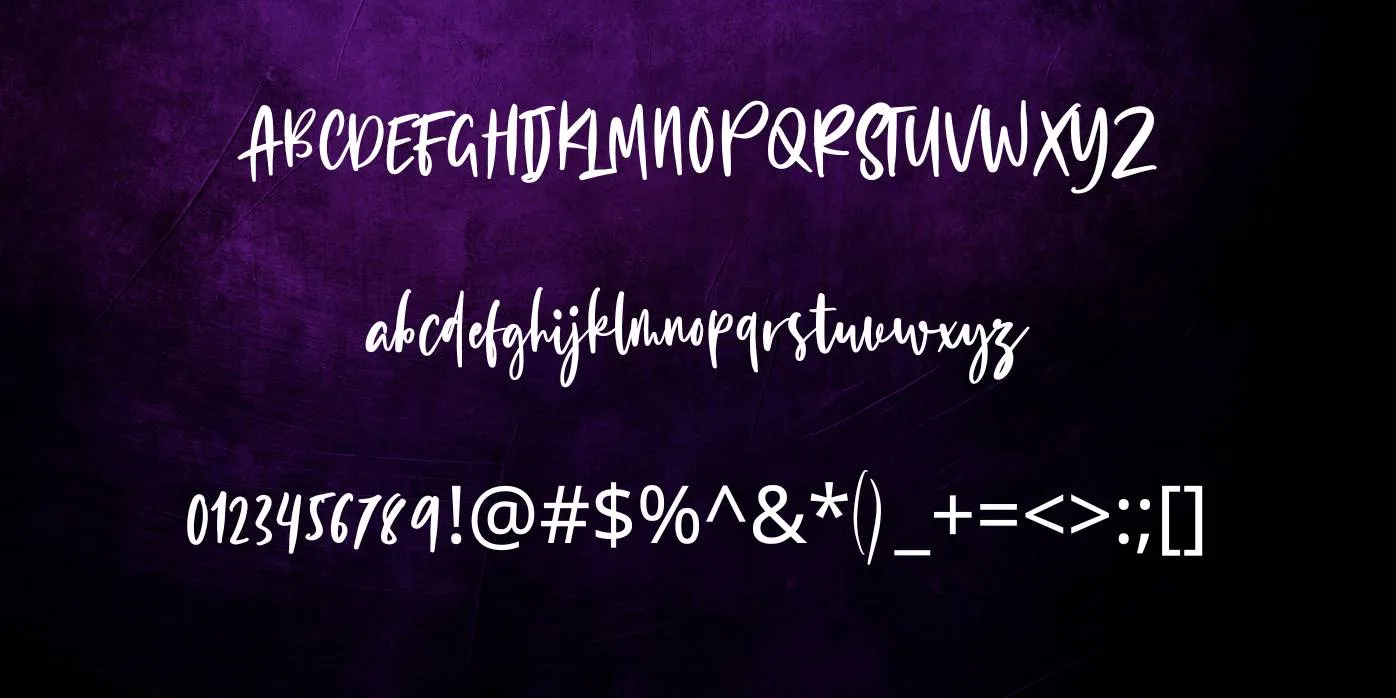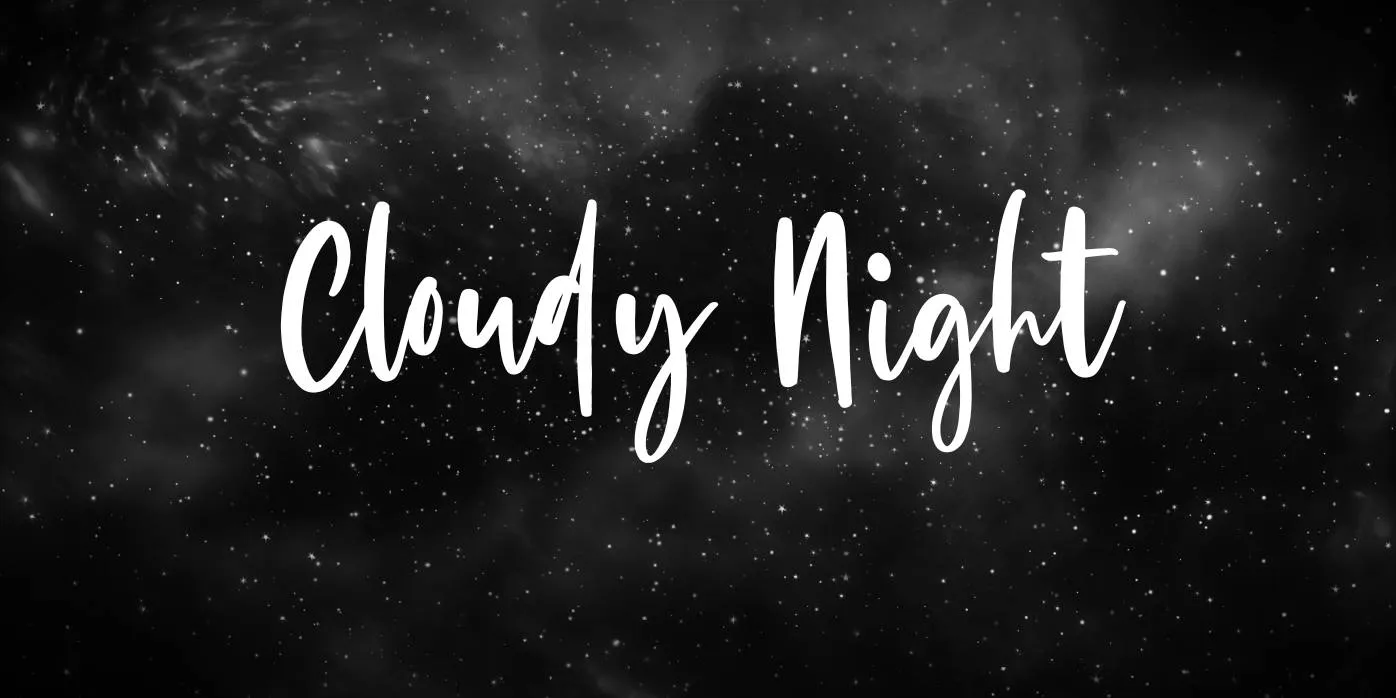
Cloudy Night Font
Cloudy Night is a very stylish and modern handwritten font and can be used to design many different projects. It has amazing elements which are good for any kind of project. It has 68 characters, 72 glyphs, and 1000 units per Em. Unicode blocks supported by this font are Basic Latin.
You can copy and paste your text easily into it. You can use this font for pairing with other fonts like royal signature font to give your project a more attractive and classy look. Usage This font can be used to design many different projects. You can make amazing handwritten projects by using lowercase, uppercase letters, and some special characters.
It can be used to design invitation cards, greeting cards, and other party invitations. You can make attractive book covers and fashion magazine covers by using this font. You can also use this font for social media posts and classy blogs. For making titles and logos you can also use this typeface.
It is considered a good font for both print and digital media. This font is good for making photographic album covers also. You can make stunning websites and graphic designs by using different Illustrators, Adobe Photoshop, CSS, and Canva. For branding and product packing you can also use it.
FAQs! What kind of Cloudy Night font is it? It is a very nice handwritten font with a very stylish flow and you can make attractive designs by using this font. Is Cloudy Night font free for commercial use?